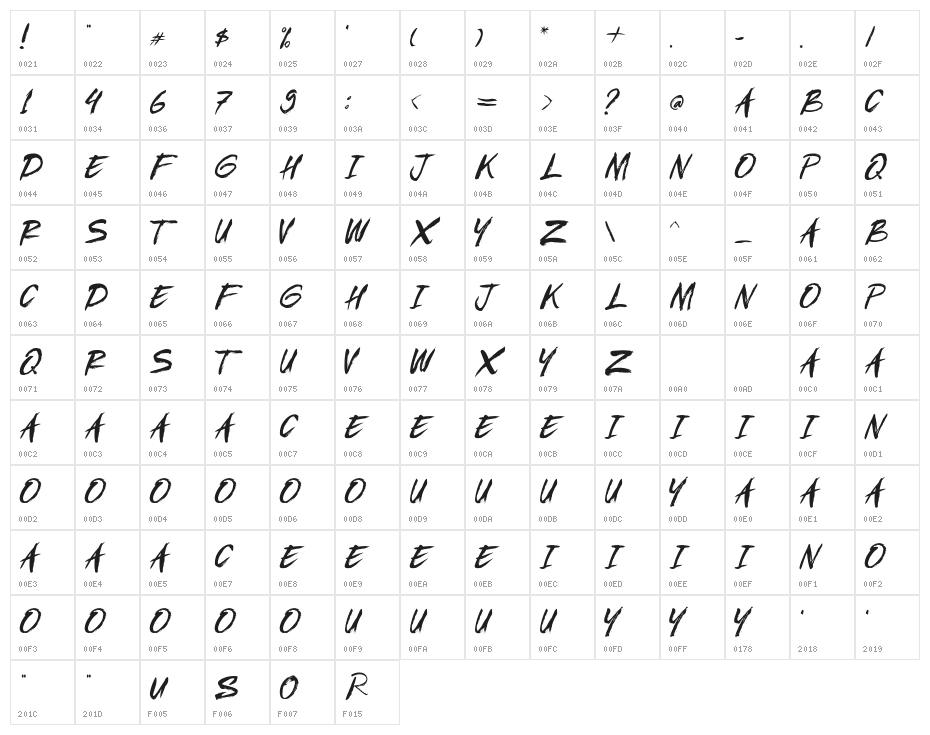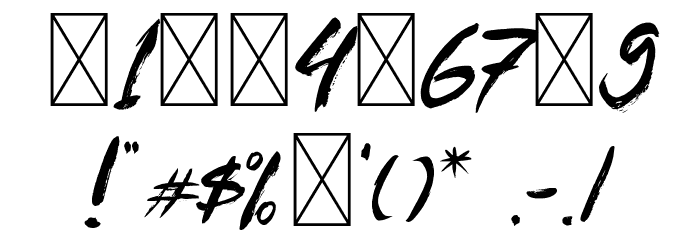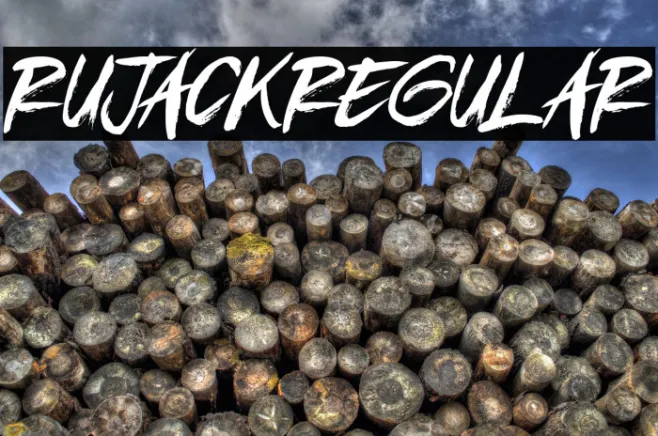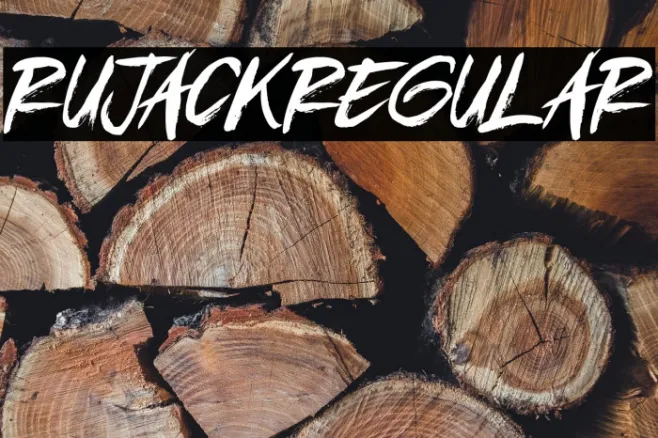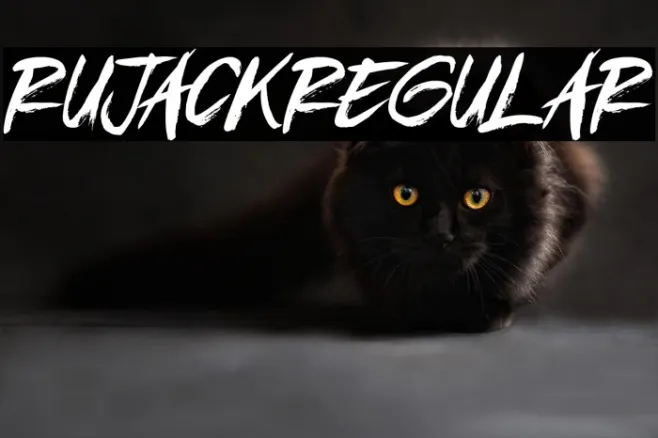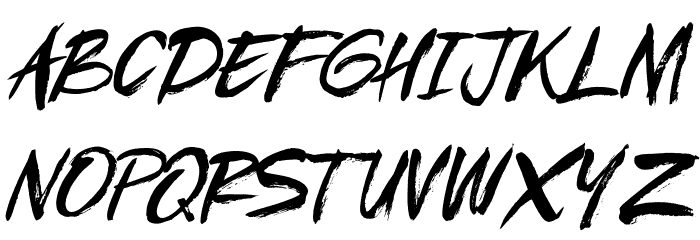
RujackRegular Font
RujackRegular Description
This font embodies a bold and expressive style, characterized by its brush-like strokes that convey a sense of dynamism and energy. The letters are crafted with a natural flow, giving them a handwritten appearance that is both artistic and impactful. The uppercase and lowercase letters maintain a consistent style, with slightly irregular edges that enhance the font's organic feel. The numbers and special characters follow the same design principles, ensuring a cohesive look across all elements. This font's unique aesthetic makes it suitable for projects that require a personal touch or a creative flair.